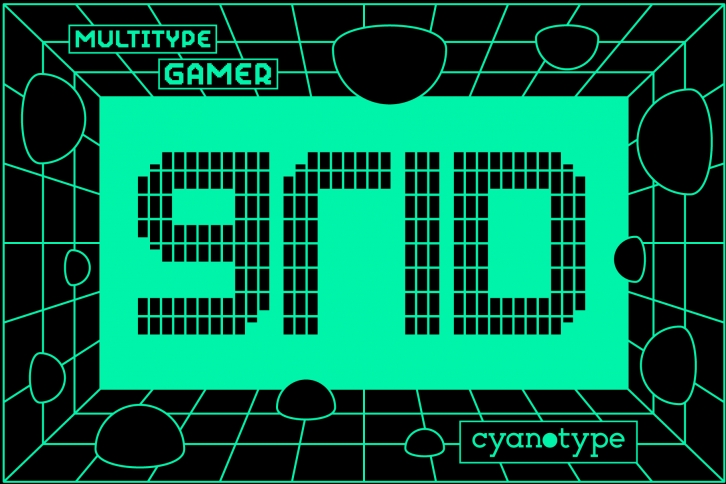
Grid is a cool, uniquely shaped, pixelated display font. Add a distorted and trendy touch to all of your designs with this unusual pixel font! Grid is PUA encoded which means you can access all glyphs and swashes with ease!